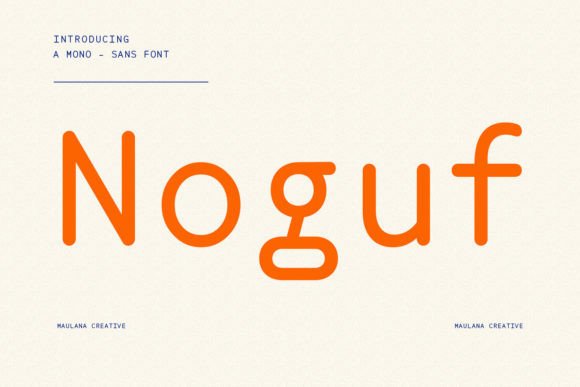
Behold Noguf, a sans-serif font family that's the perfect choice for digital displays. This modern and intriguing font, crafted by the talented Maulana Creative, will elevate your projects with its captivating style and sweet flicker.
**1. Noguf: The Digital Display Champion**
In the realm of digital presentations, Noguf reigns supreme. Its crisp, clean lines and meticulously crafted characters ensure your messages shine with clarity and precision. Whether you're creating captivating website designs, engaging social media posts, or eye-catching digital ads, Noguf amplifies your content, making it impossible to ignore.
**2. Unleash Your Creativity with Noguf**
Noguf's versatility knows no bounds. Its playful nature lends itself effortlessly to a myriad of creative projects, from whimsical posters and vibrant flyers to striking logos and unforgettable branding materials. With Noguf, you're not just designing—you're crafting an experience that captivates and enchants your audience.
**3. Sweet Flicker: Noguf's Enchanting Charm**
The Noguf font characters possess an irresistible allure, a sweet flicker that dances across your designs, adding a touch of magic and intrigue. Whether you're crafting a heartfelt invitation or a captivating presentation, Noguf weaves its spell, captivating your audience with its enchanting presence.
**4. Noguf: The Key to Memorable Branding**
In the fiercely competitive world of branding, Noguf emerges as a secret weapon. Its distinctive style ensures your brand stands out from the crowd, leaving an indelible mark on your customers' minds. Whether you're creating a new logo, revamping your website, or designing marketing materials, Noguf propels your brand to new heights, making it unforgettable and magnetic.
**5. Noguf: Your Design Companion**
Noguf isn't just a font; it's your creative companion, your trusty ally in the world of digital design. With its user-friendly nature, mastering Noguf is a breeze, allowing you to focus on your creative vision without getting bogged down in technicalities. Unleash your imagination and watch as Noguf transforms your ideas into stunning realities.